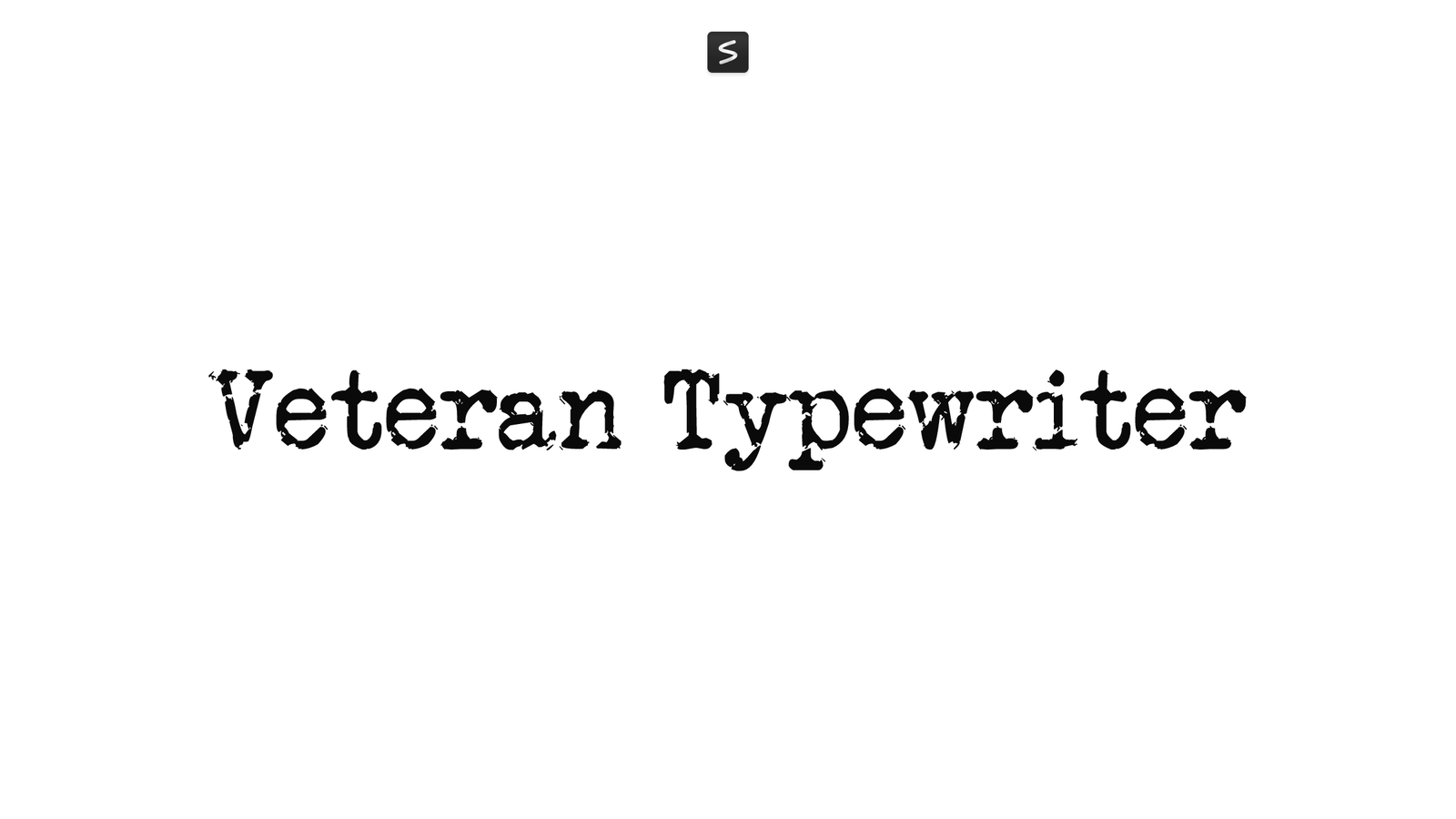
Veteran Typewriter is a typewriter font by Magique Fonts that recreates the mechanical character of old typewriter machines. It has the worn, slightly uneven feel of a machine that has seen decades of use, with characters that appear pressed and faded as if typed on worn ribbon.
The font works well for projects that need an authentic, analog aesthetic: vintage letters, retro documents, noir-inspired designs, or anything that benefits from a sense of history and age. Its irregular baseline and slightly imperfect letterforms add texture without becoming hard to read, making it suitable for both headlines and body text in themed layouts.
Veteran Typewriter is a solid choice for book covers, zines, posters, or any design that wants to evoke the tactile, no-frills quality of mid-century typewritten pages.